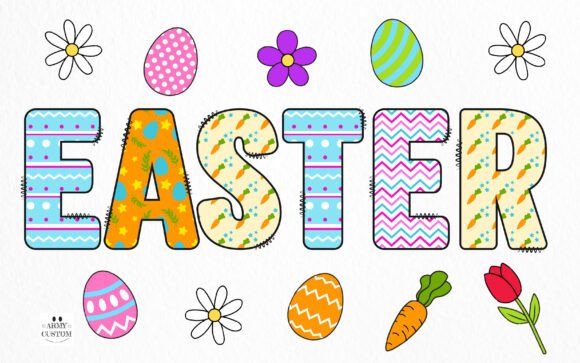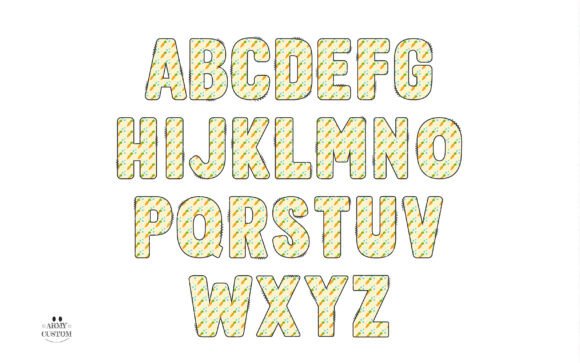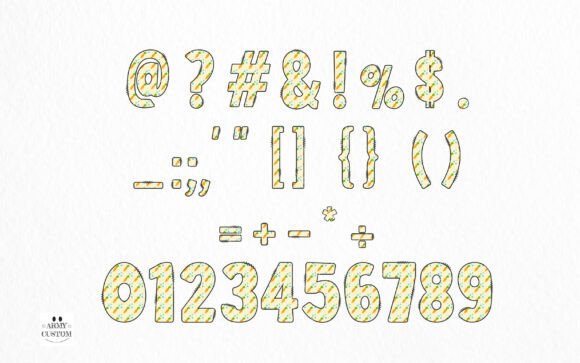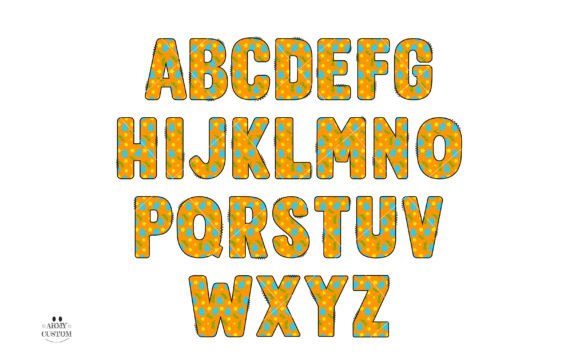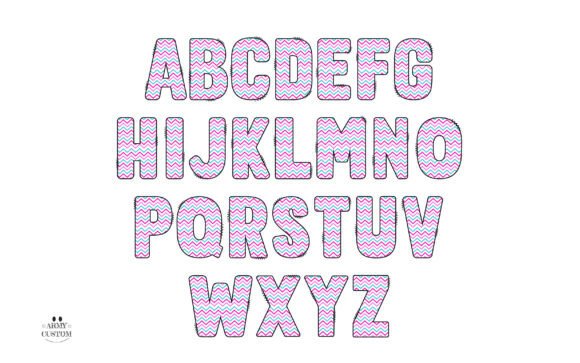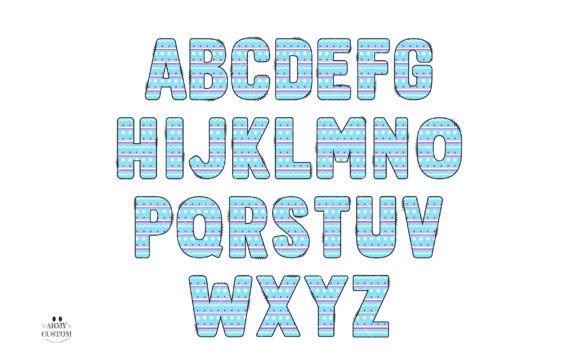
Spring into Creativity with the Easter Bundle Font
Have you ever sat at your desk, staring blankly at a blank page, struggling to bring your creative vision to life? That was me, until I stumbled upon the Easter Bundle Font No.14. It’s a game-changer for designers like you and me, who crave a little extra magic in our designs.
This delightful font bundle is more than just a collection of letters – it’s a key to unlocking your inner designer. With its vibrant aesthetic and rhythmic charm, the Easter Bundle Font effortlessly brings your ideas to life, infusing your designs with the joy and excitement of Spring. Whether you’re working on a Easter-themed project or simply want to add a pop of color to your designs, this font is the perfect tool to get you started.
As a designer, you understand the importance of having the right tools at your fingertips. The Easter Bundle Font is a valuable addition to any design arsenal, offering endless creative possibilities and a unique touch that sets your designs apart from the rest.
Easter Bundle Font Key Features
- Character Set: This font includes a vast character set, including uppercase and lowercase letters, numbers, punctuation marks, and special characters, making it suitable for various languages.
- Unique Characteristics: The Easter Bundle Font features a unique, hand-drawn design with intricate details, giving it a personal and artistic touch. It’s perfect for creating eye-catching and festive designs.
Easter Bundle Font Review
I recently had the chance to work with the Easter Bundle Font, and I must say it’s a mixed bag. Here’s my honest take on this font bundle.
- The variety of fonts in this bundle is impressive. You get a range of styles, from elegant script fonts to bold sans-serif fonts.
- The Easter Bundle Font is incredibly versatile and can be used for a wide range of designs, from Easter-themed projects to more general branding and marketing materials.
- The fonts are well-designed and look great in both digital and print formats.
- The font sizes and line spacing can be a bit tricky to adjust, especially for those who are new to font manipulation.
- Some of the fonts may not be suitable for body text, as they can be a bit too ornate or distracting.
- The font bundle could benefit from more comprehensive documentation and tutorials.
Overall, I’d say the Easter Bundle Font is a great option for designers who need a versatile and elegant font for their projects. While it has some limitations, the benefits far outweigh the drawbacks. With a bit of practice and patience, you can create some truly stunning designs with this font bundle.
Tips for Getting the Most Out of Easter Bundle Font
Experiment with layering and combining the font with other design elements for a unique look.
Use the font in combination with bright colors and pastel hues to create a festive atmosphere.
Don’t be afraid to get creative and try out new font combinations and styles.
The Easter Bundle Font is perfect for creating Easter-themed designs, such as invitations, party decorations, and social media graphics.
Use the font to add a festive touch to your spring and summer designs, such as garden party invitations and outdoor event promotions.
Q: Can I customize the Easter Bundle Font?
The Easter Bundle Font is a vector font, which means it can be scaled up or down without losing any quality. However, it is not a customizable font in the classical sense. If you need to make significant modifications to the font, you may need to use a font editing software like FontLab or Glyphs. However, for most design applications, the font should be suitable for use as is.